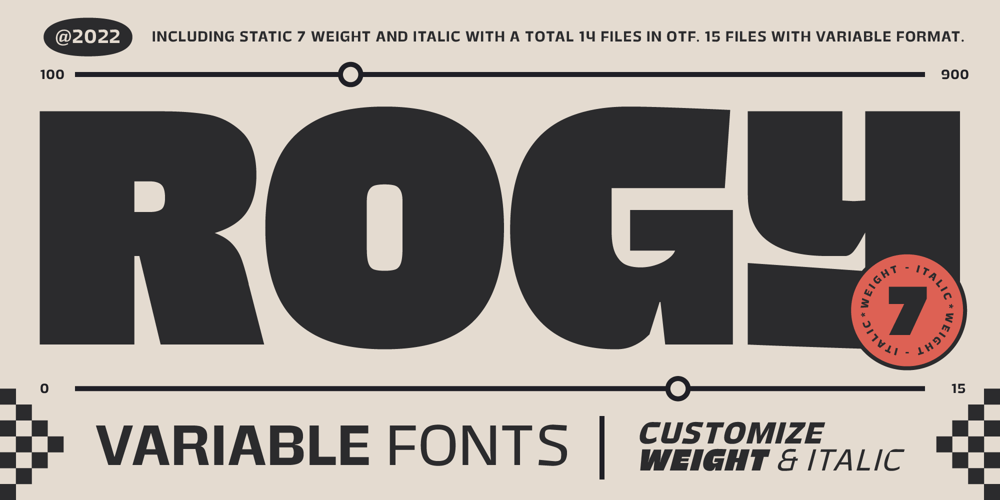
Rogy
Rogy font
Rogy Font Family was designed by Adam Fathoni Haris and published by Adam Fathony. Rogy contains 15 styles and family package options. Rogy, A Display Typefaces with Variable Weight and Italic.Rogy is a modern variable font. Basically this is a Sans with rigidity and squared look yet very legible with various width and italic that you can explore, combine, create and help you designing something. The Bolder the Stronger. it has define Rogy, it’s Bold, Strong and the italic version of this fonts are very good for Sports design.